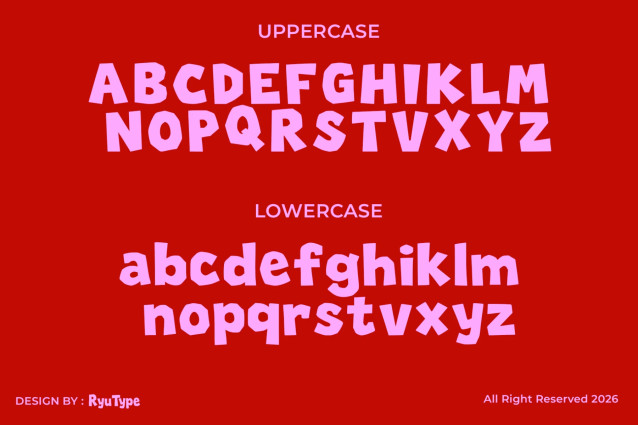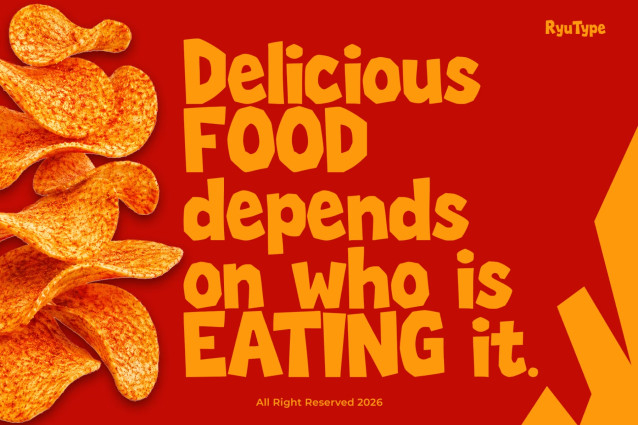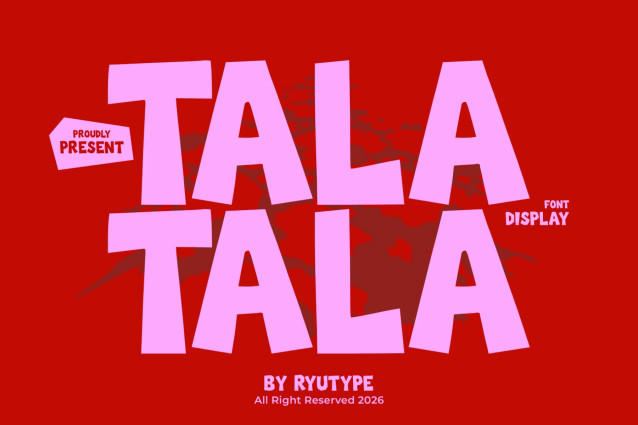
TALATALA Font is a bold and quirky display type inspired by hand-cut lettering and playful street-style typography. It features chunky geometric forms, irregular angles, uneven proportions, and a raw handmade character that gives each letter a strong and energetic personality — perfect for food branding, posters, packaging, apparel, stickers, logos, and bold retro-inspired designs.
TALATALA DISPLAY FONT